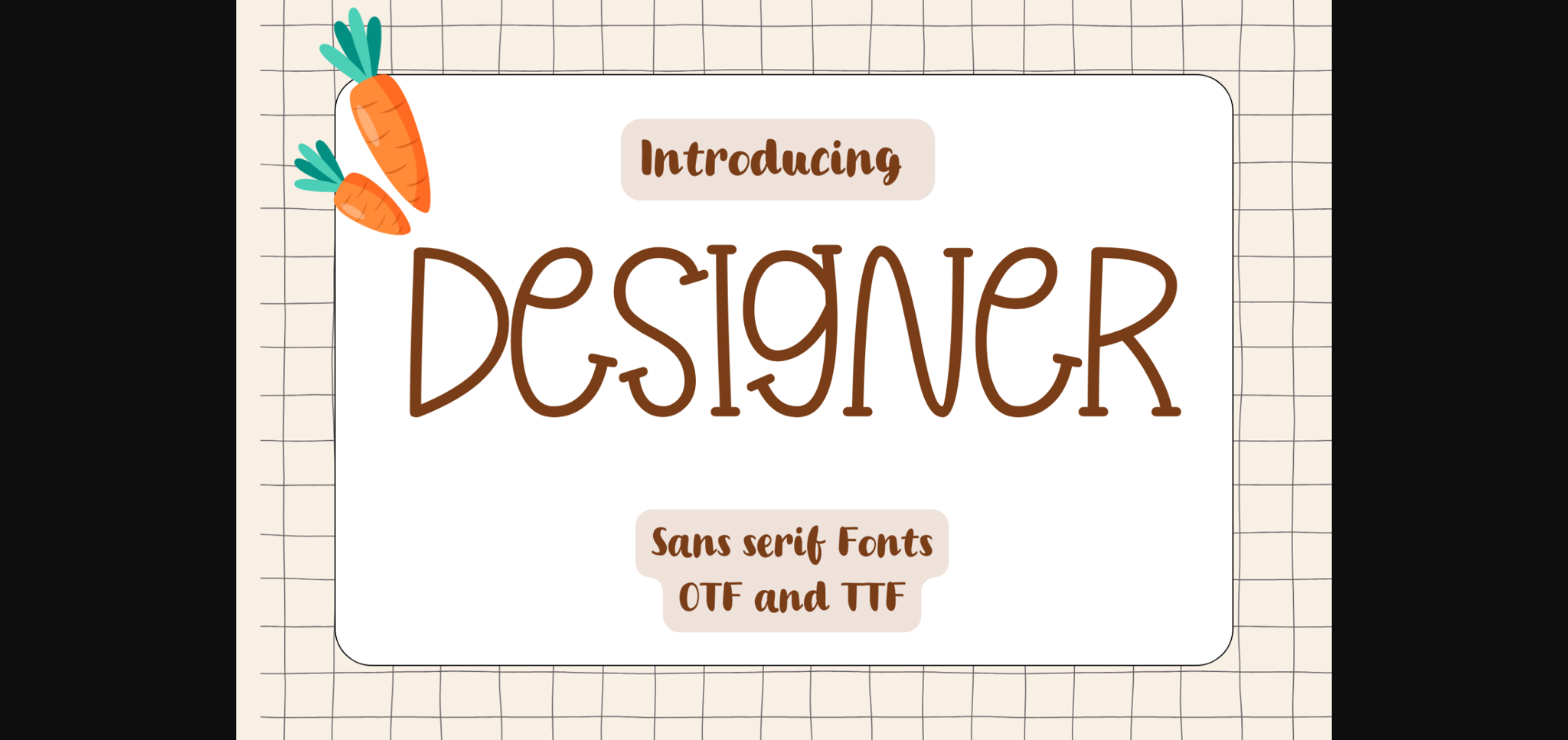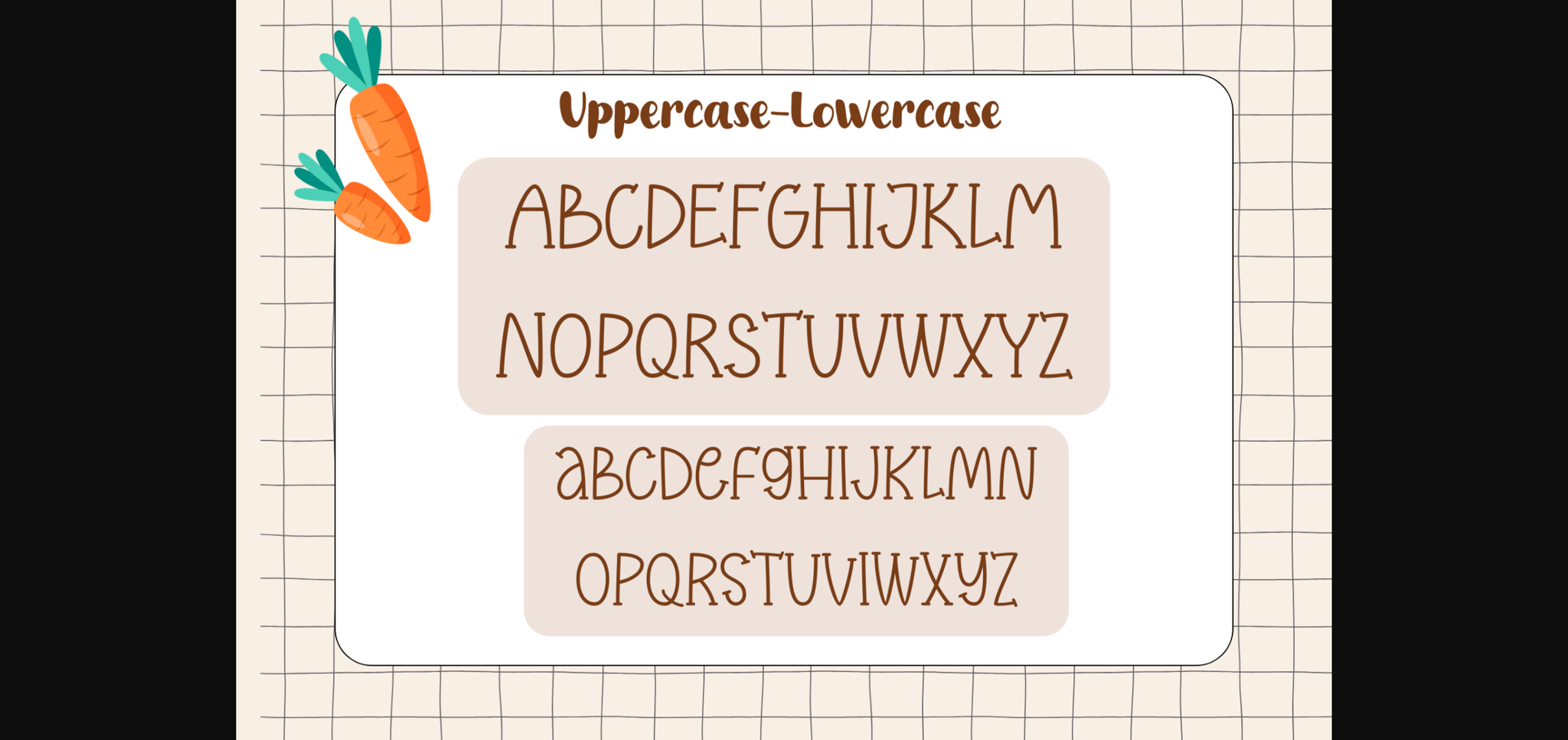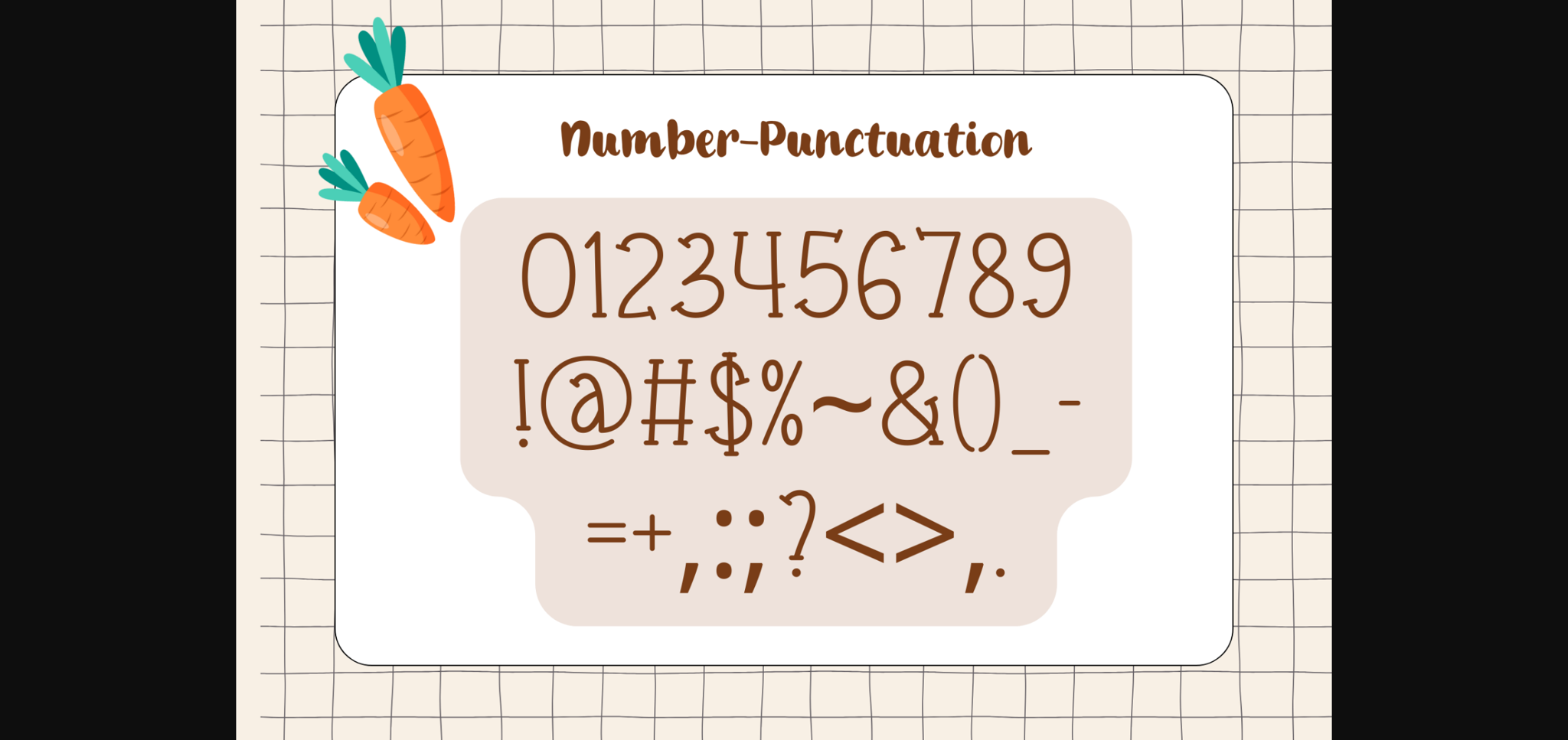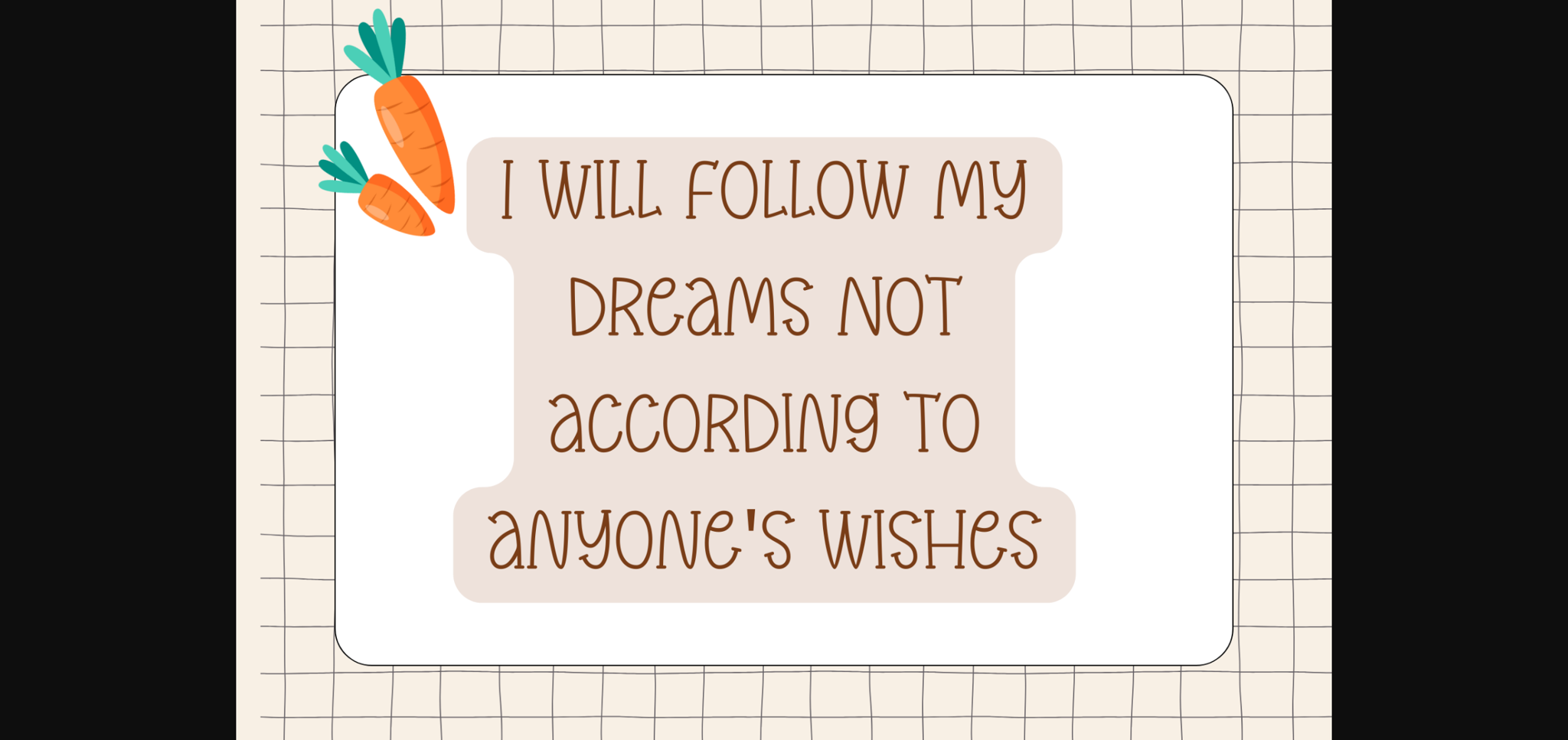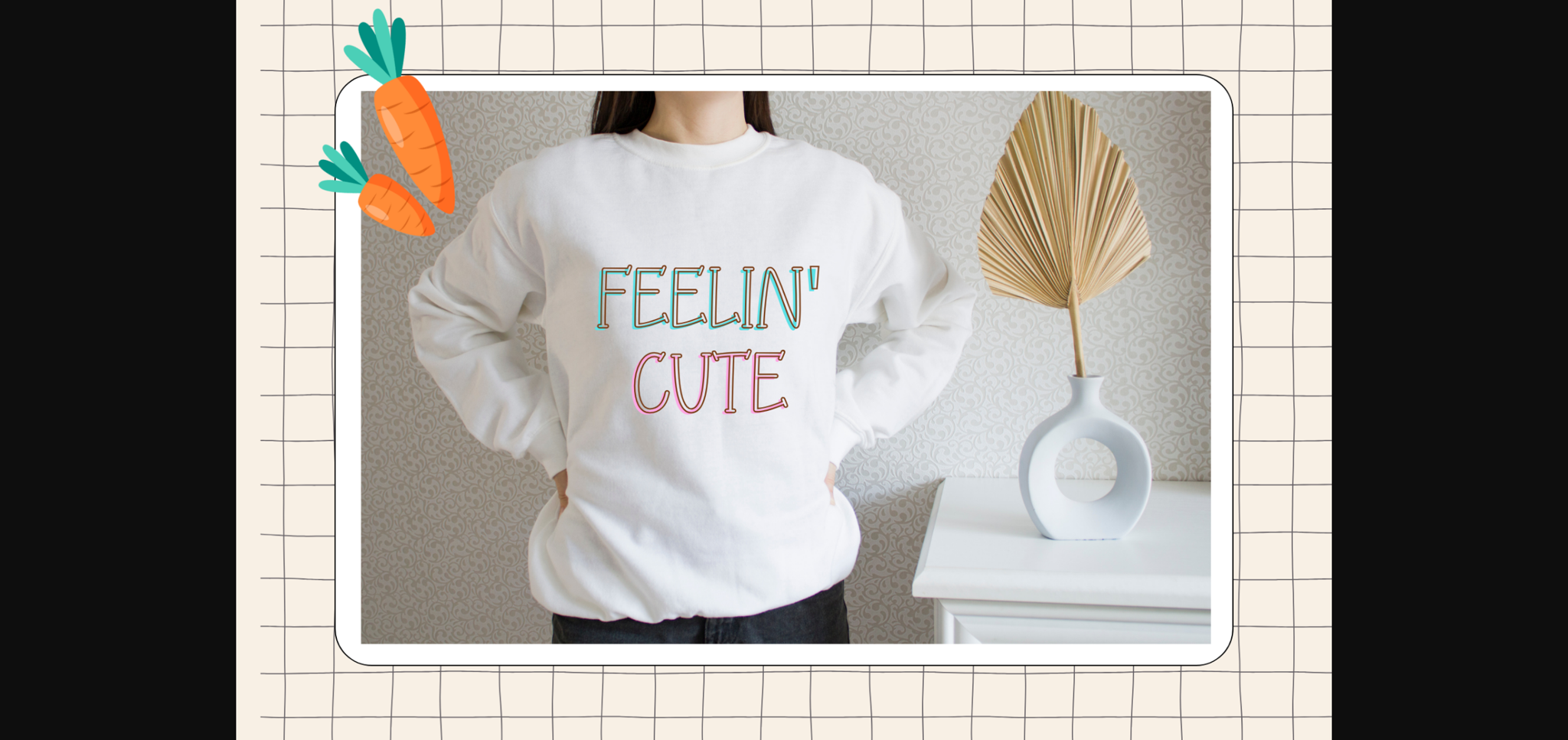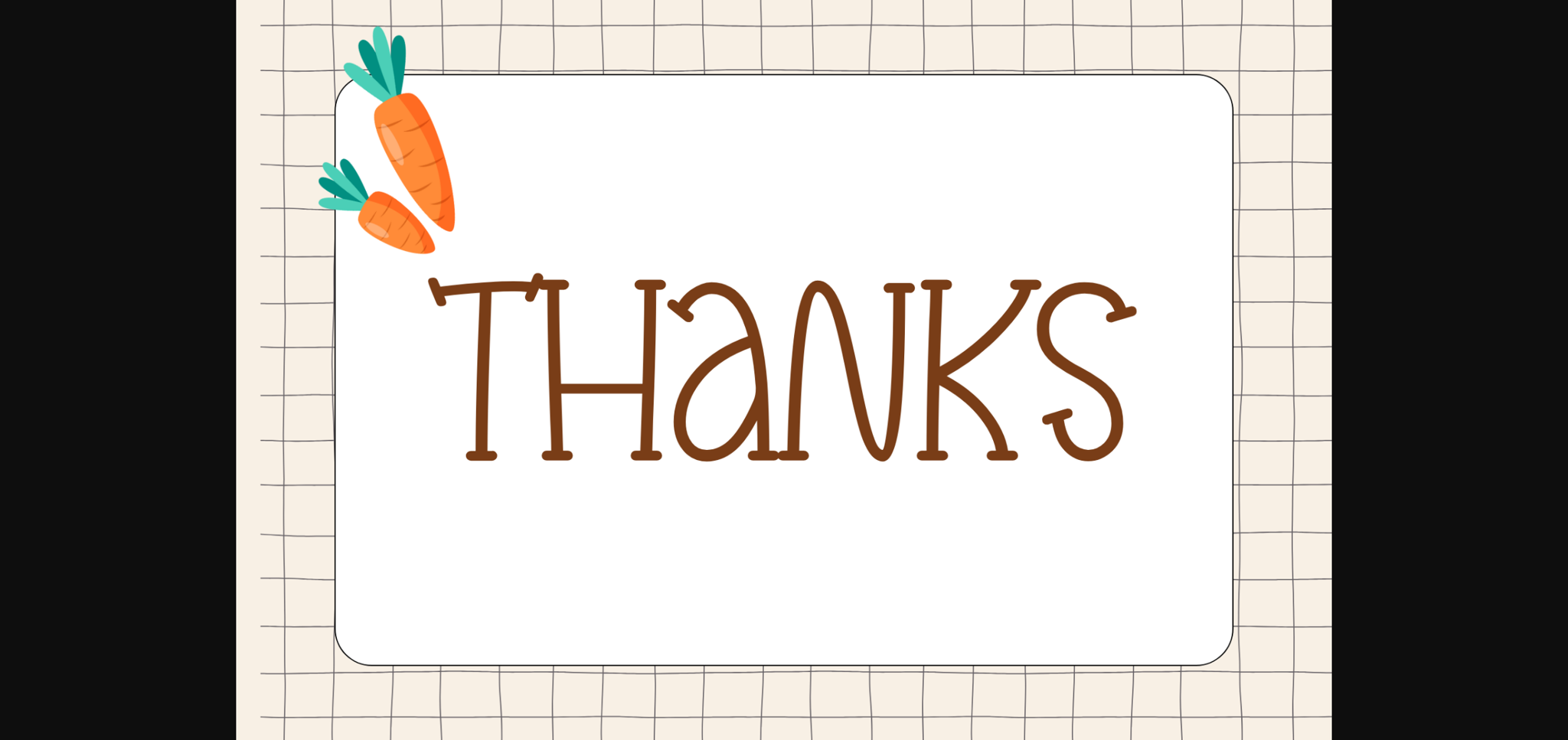
HomeSans Serif FontsDesigner Font Sans Serif Fonts Designer Font FacebookXPinterestWhatsApp 1 of 8 ... Designer Font Poster 2... Designer Font Poster 3... Designer Font Poster 4... Designer Font Poster 5... Designer Font Poster 6... Designer Font Poster 7... Designer Font Poster 8... About Designer Font Designer is a sweet and friendly sans serif font with a handwritten style. Its natural and unique style makes it incredibly fitting to a large pool of designs. The only limit is your imagination! DOWNLOAD NOW People also explored Vanilla Font Agretha Font Holiday Vacation Font Sweet Smile Font Dellamonde Script Font Separate Font Binttang Selfianto Font Monogram Berliana Font Cinderford Font 372 0 TagsDesigner Font Previous articleNaora FontNext articleCandy Font LEAVE A REPLY Cancel reply Comment: Please enter your comment! Name:* Please enter your name here Email:* You have entered an incorrect email address! Please enter your email address here Website: Save my name, email, and website in this browser for the next time I comment. Personal Use Free Batik Classic Personal Use Free Read more about this font Loopina Personal Use Free Read more about this font Juliagar Personal Use Free Read more about this font Starting Live Personal Use Free Read more about this font BLOG 5 Fonts That Will Dominate Design Trends in 2026 5 Fonts for 2026 That Will Dominate Design Trends Typography plays a critical role in visual communication, and as we look ahead to 2026, it’s... Transform Your Website: Elevate Your Typography with 7 Best Web Font Generators Modern Sans-Serif Fonts That Brands Love in 2025 The 10 Best Handwriting Fonts to Add Personality to Your Designs